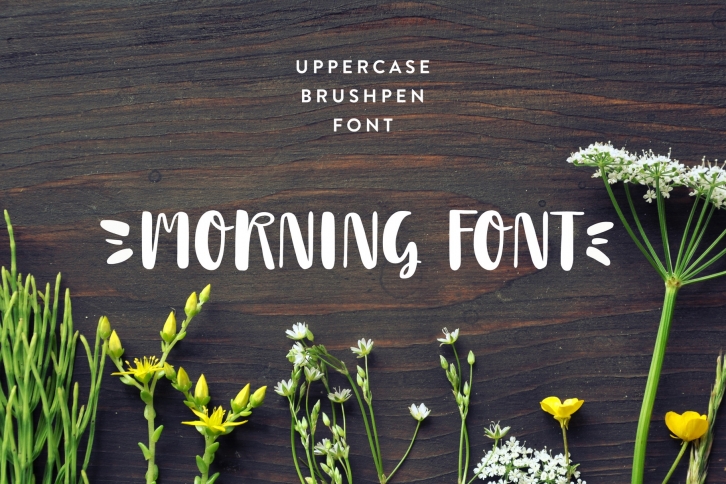
Morning is a trendy and unique font with an authentic style. It was designed by Struvictory.art and it's a great choice for creative people who need such a font. It was released on December 21, 2018 and the file size is 10.96 MB. Morning will add an organic vibe to any design idea!